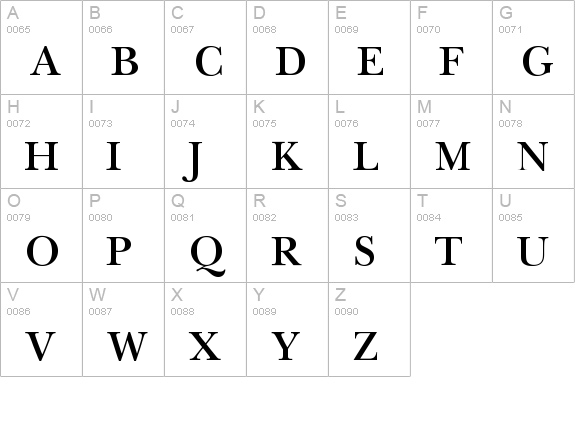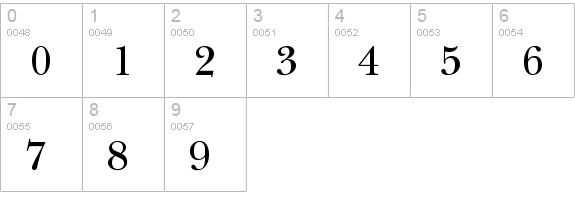
New Baskerville* Semi Bold Font Details
New Baskerville* Semi Bold is a strong, high-contrast variant in the New typeface family \xE2\x80\x94 well suited to headlines, attention-grabbing titles, and strong calls-to-action.
New Baskerville Semi Bold is a versatile and elegant typeface that effortlessly combines classic sophistication with a modern touch. Its sturdy yet graceful design makes it perfect for a wide range of projects, from formal invitations to branding materials. The semi bold weight adds a touch of boldness and emphasis, making your text stand out with confidence. This font is not only visually appealing but also highly readable, making it suitable for both print and digital applications. Its timeless charm and versatility make it a popular choice for designers and creatives looking to add a touch of sophistication to their work. Best of all, New Baskerville Semi Bold is available for free download at FontsMarket.com, allowing you to access this exquisite font without any cost. Don't miss out on the opportunity to enhance your designs with the timeless elegance of New Baskerville Semi Bold.